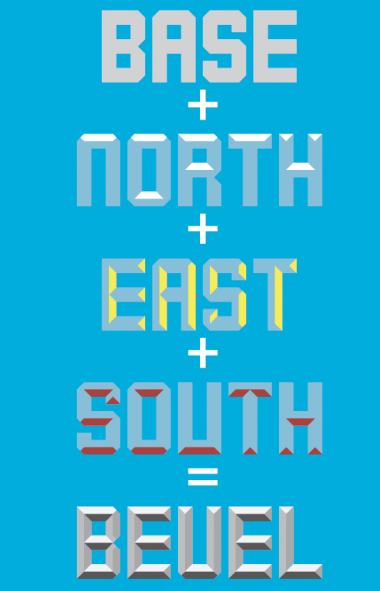
Bevel South
Part of the Bevel-family; contains the 'south-facing' facets of the Bevel font
Example of using Bevel Font Family
Clever concept -- part 2 ;) --